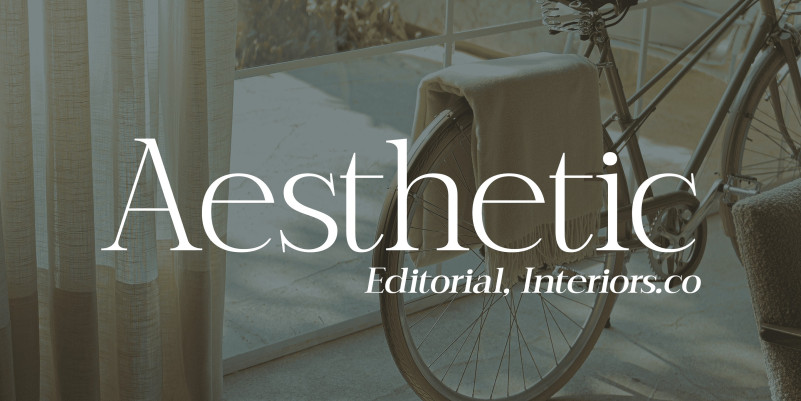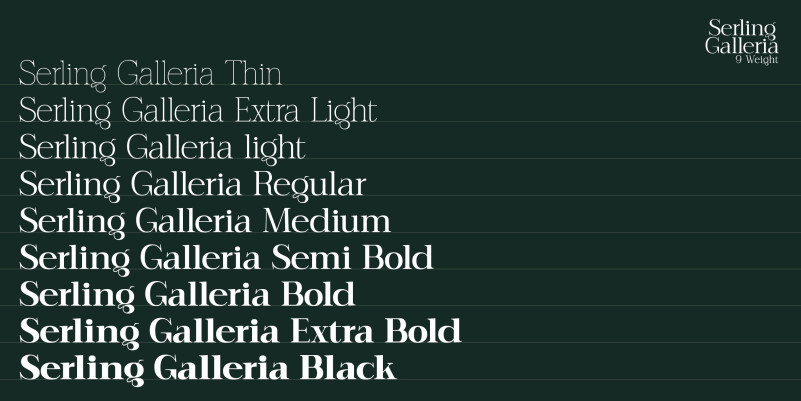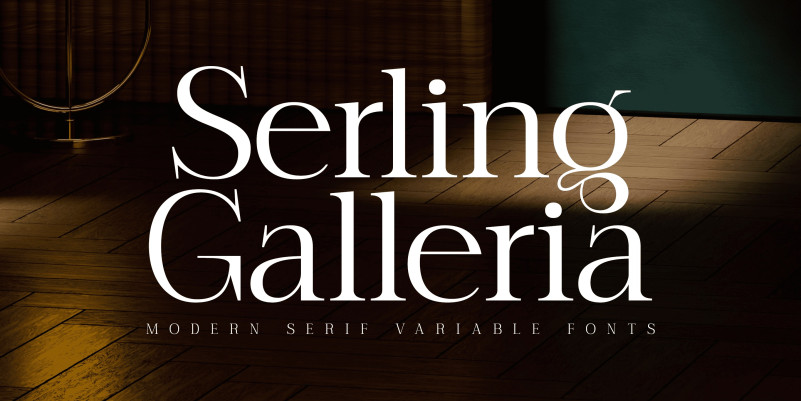
Serling Galleria Font
Serling Galleria Font , is a classy, classic serif font that exudes an air of fine art and high-end creativity. With its clear, legible letterforms and modernist inventiveness, Serling Galleria brings a touch of strict creativity to your designs, making them stand out in sophistication.